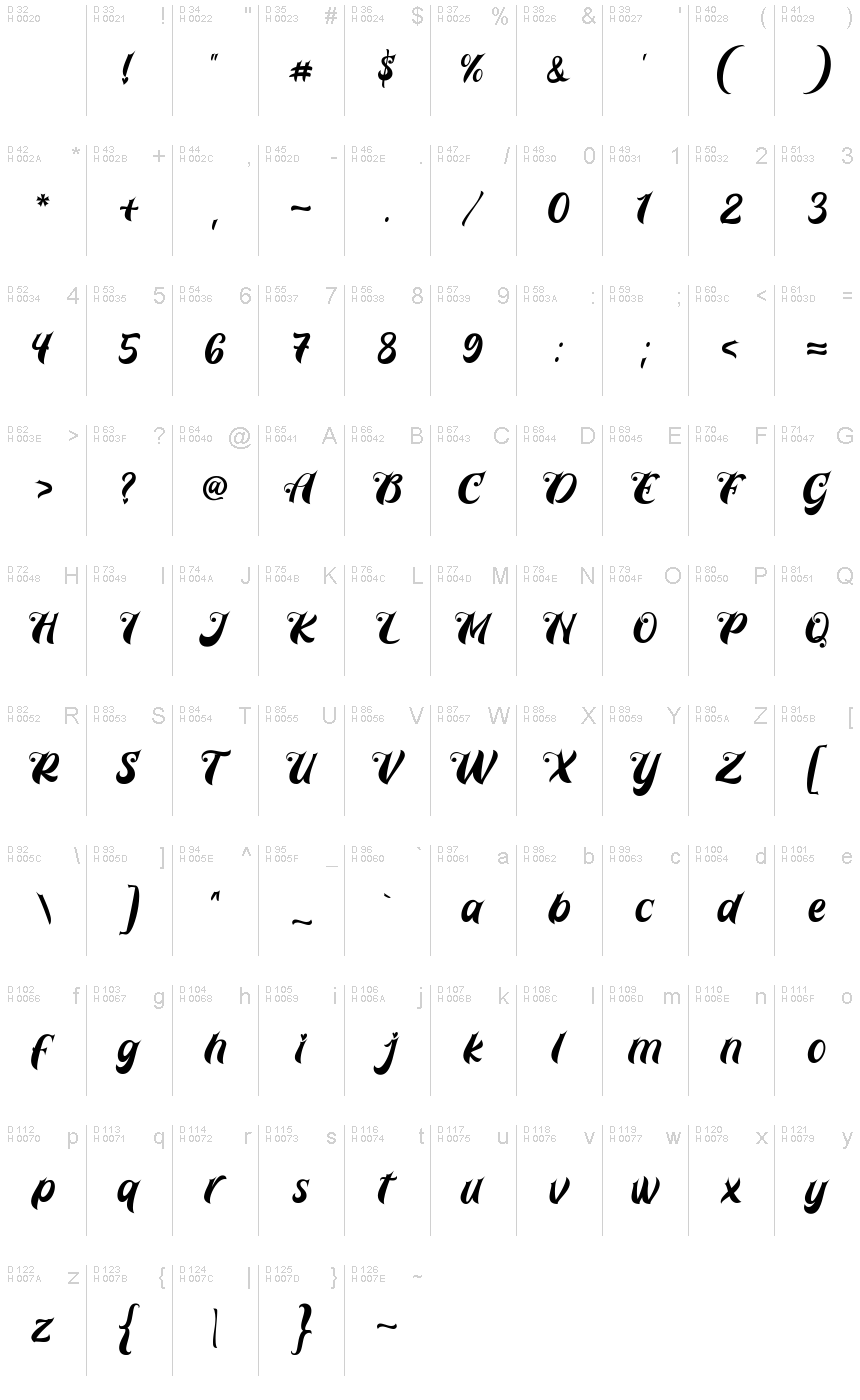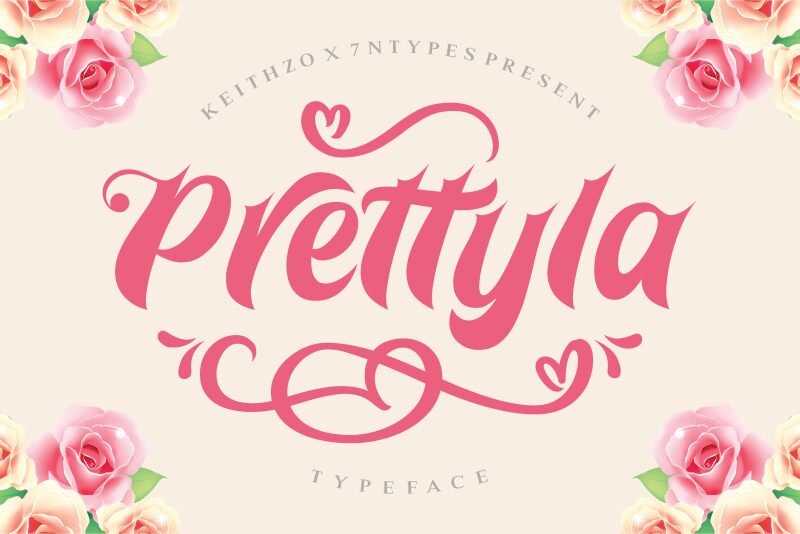
Prettyla
Prettyla is a bold, brush-style font that exudes a captivating blend of elegance and dynamism. Crafted by the talented duo of Keithzo and Situjuh Nazara, this typeface showcases a striking balance of smooth, flowing strokes and distinctive flourishes.
Its strong, confident presence makes it an ideal choice for attention-grabbing headlines, impactful branding, and visually engaging design elements. Prettyla's versatility shines through, seamlessly transitioning from modern and sophisticated to playful and expressive, depending on the context in which it is applied.
Its unique character and versatility make Prettyla a compelling addition to any designer's toolkit.